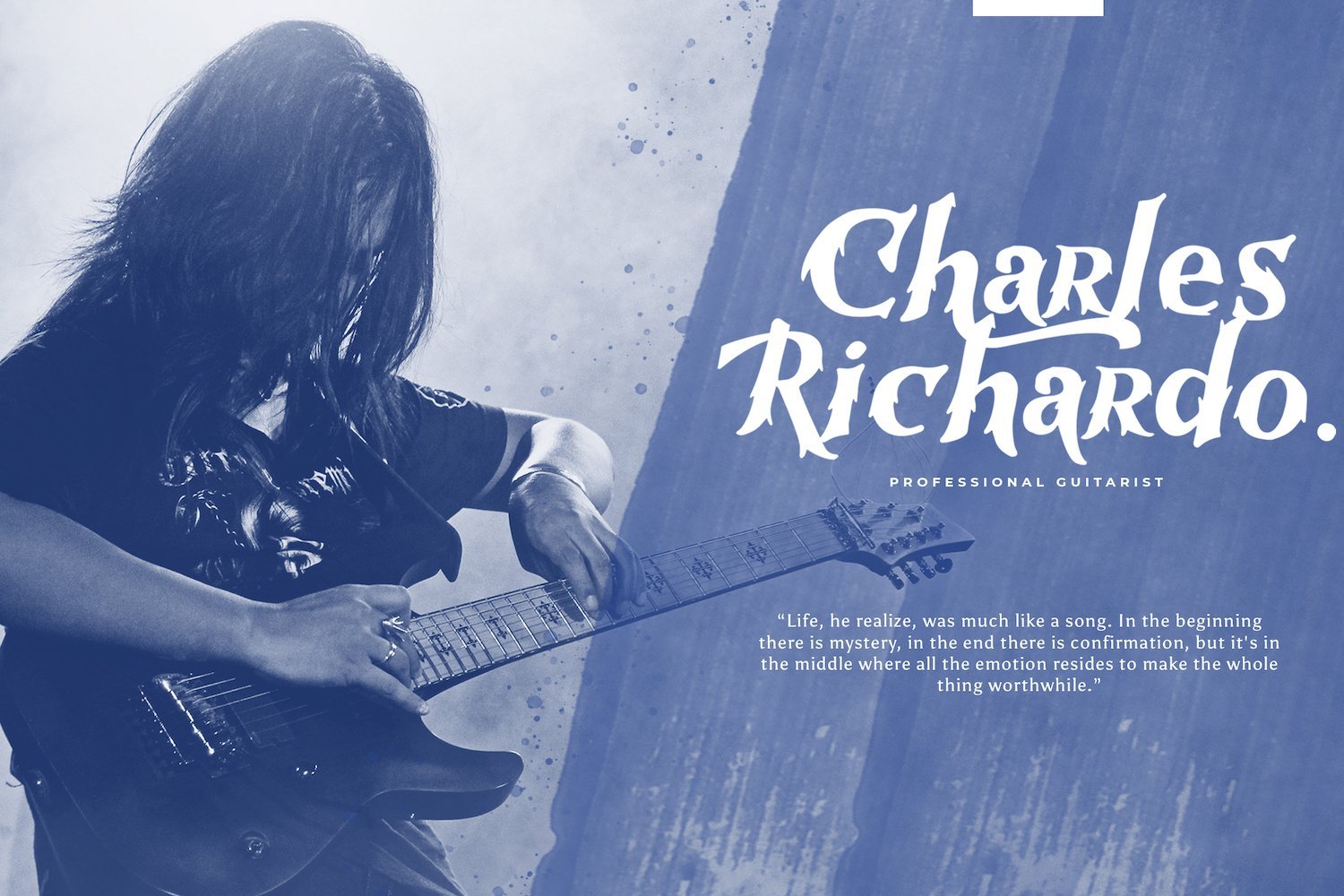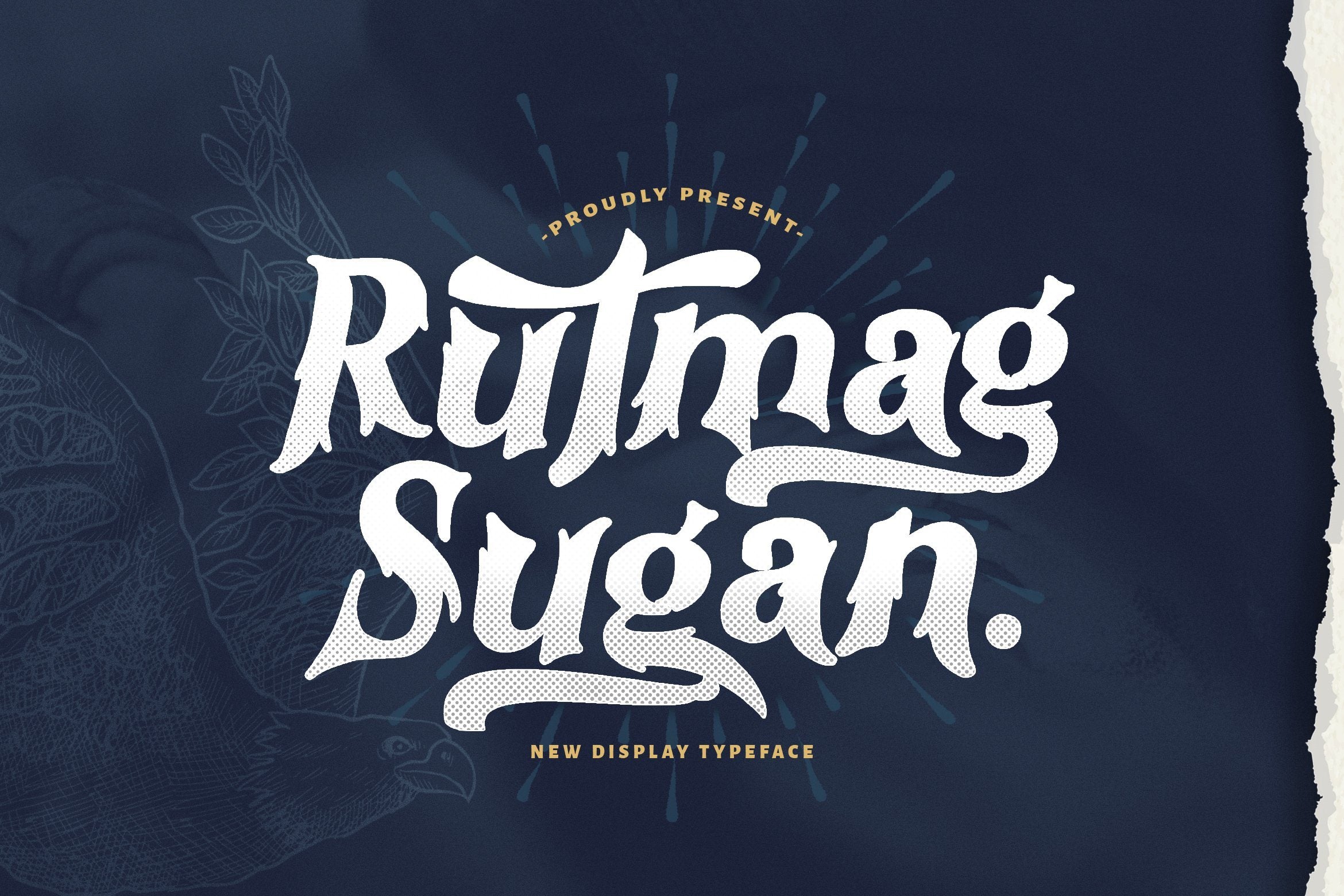
About Rutmag Sugan – Decorative Display Font
Introducing Rutmag Sugan – Decorative Display Font Rutmag Sugan is a unique, stylish and elegant decorative font. This typeface will look truly outstanding in a wide range of contexts. FEATURES – TTF/OTF/WOFF/WOFF2 – Alternates – Uppercase and Lowercase letters – Numbering and Punctuations – Multilingual Support – Works on PC or Mac – Simple Installation – Support Adobe Illustrator, Adobe Photoshop, Adobe InDesign, also works on Microsoft Word Hope you Like it. Thanks.